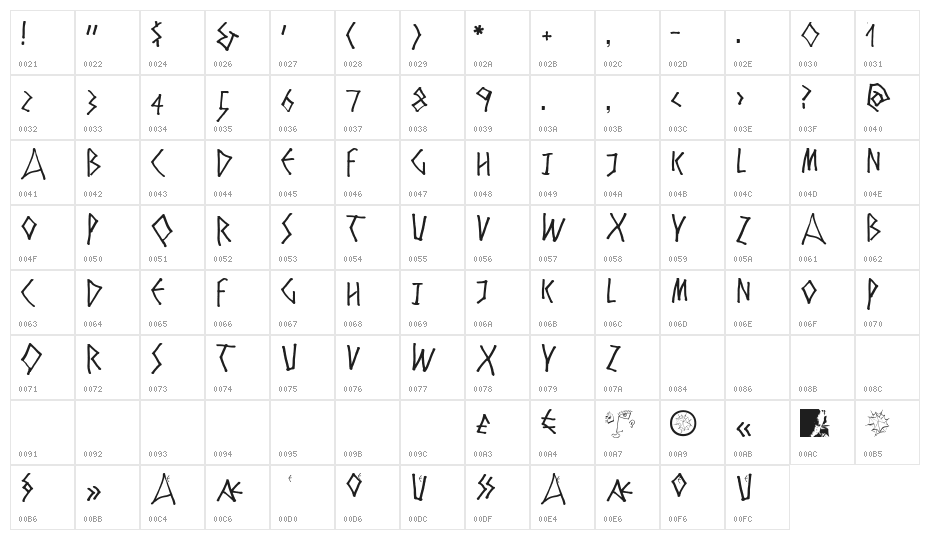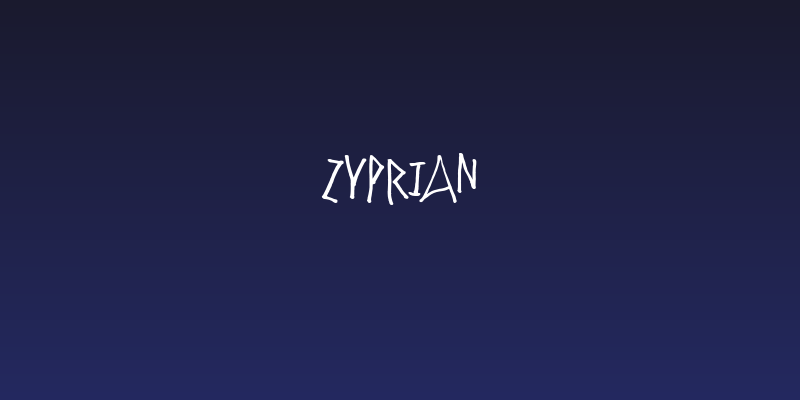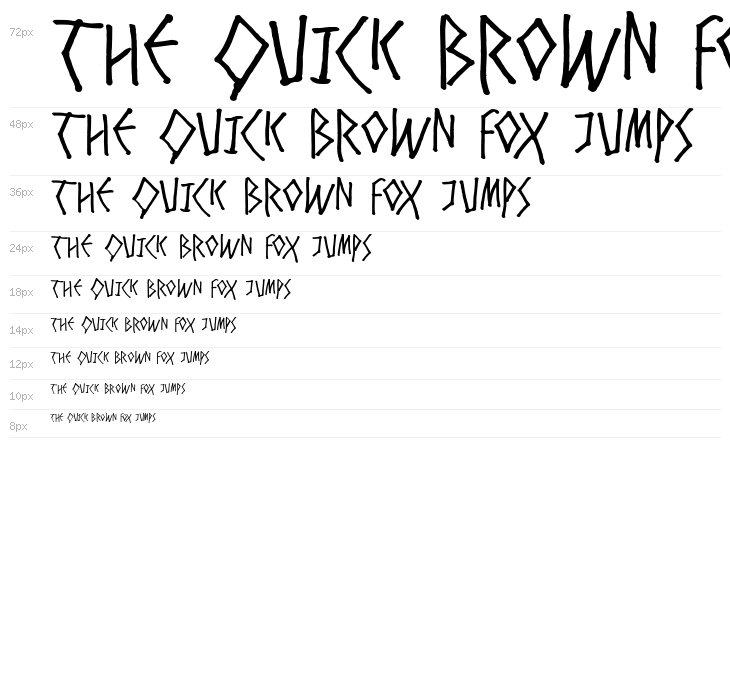
Zyprian Font
| Vorgeschlagene Projekte | Ideal for fantasy-themed designs, historical reenactment materials, or any project needing an ancient or mystical aesthetic. |